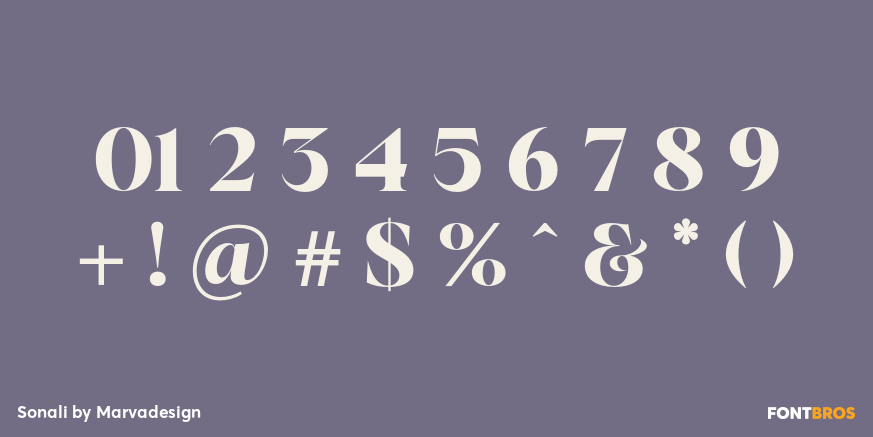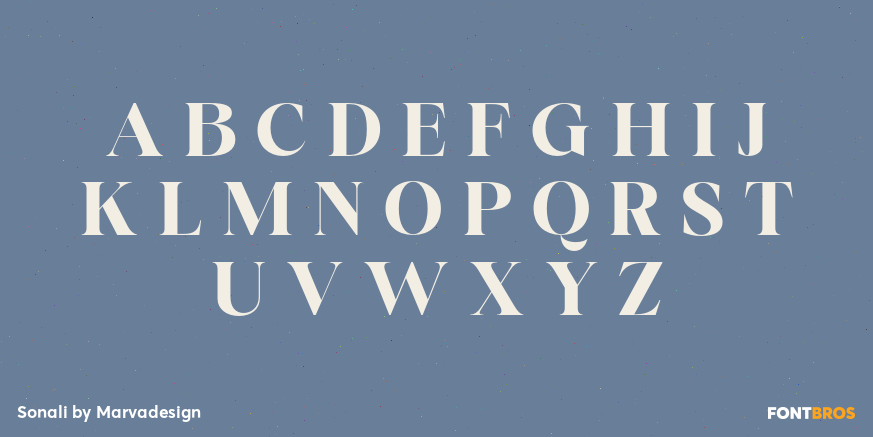
Sonali
Font Family by Marvadesign
Introducing our new product Sonali Font - A Modern Serif Family Font Font authentic display font. The font is suitable for any branding project like logo, Template Design, Product and many more. outstanding in a wide range of contexts.